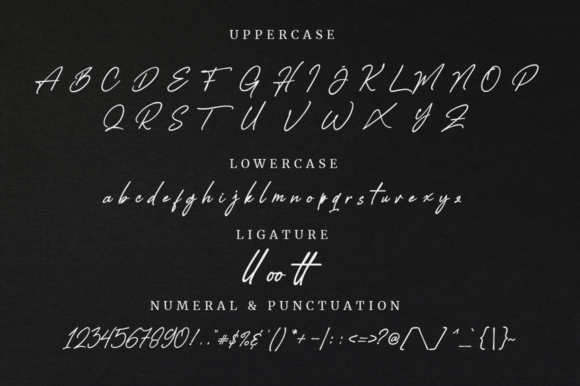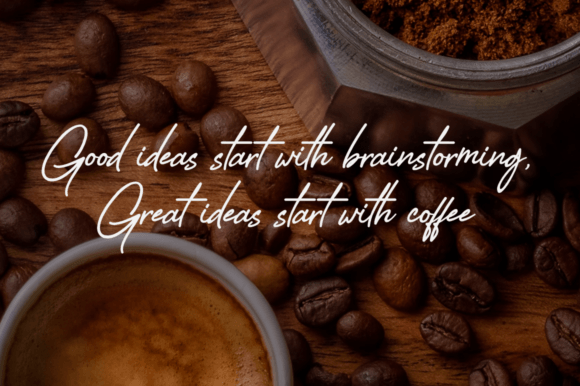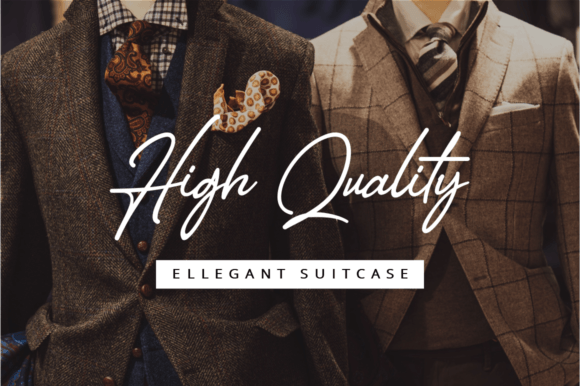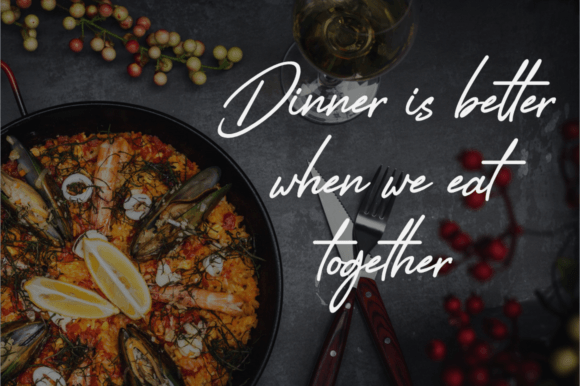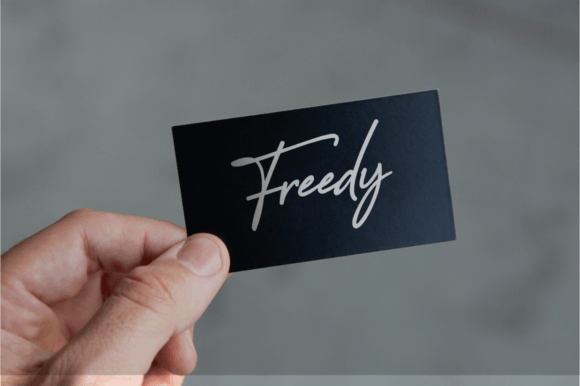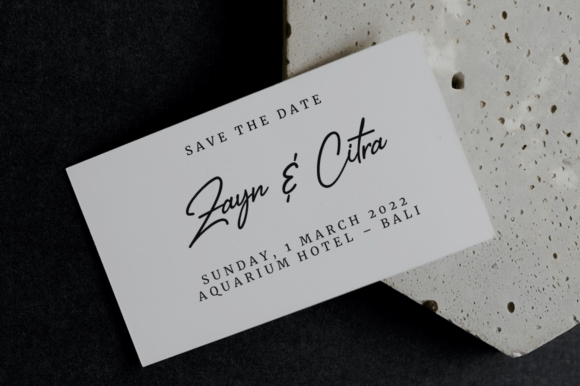
The Magic of Battavia Hill Font: Elevate Your Creative Vision
Have you ever been browsing through a beautiful design on Instagram, and suddenly, you’re inspired to create something similar? The thrill of seeing your creative idea come to life is unmatched. For designers, this spark of inspiration often leads to a quest for the perfect font to bring their vision to reality.
This is where the Battavia Hill Font comes into play – a magical script font designed to add a touch of elegance to any design. Whether you’re working on a DIY project or creating content for your social media, this font is sure to elevate your creative vision. Its unique design and versatility make it an invaluable asset for designers looking to add a personal touch to their work.
Battavia Hill Font Key Features
- Font Family: Battavia Hill
- Unique Characteristics: Features a unique blend of modern and vintage elements, with intricate details and ornate flourishes
- Font Style: Available in Regular, Bold, Italic, and Bold Italic styles
Battavia Hill Font Review
Overall, I think the Battavia Hill font has some great qualities, but it also has some areas where it falls short. Let’s start with what works well: ✨ The font has a unique and elegant feel that would be perfect for luxury branding or high-end packaging. The subtle rounded edges and classic feel make it a great choice for creating a sophisticated and refined atmosphere. Additionally, the font is highly legible, making it easy to read even at smaller font sizes.
However, there are some limitations to the font that might make it less suitable for certain projects. ⚠️ For one, the font is quite ornate, which can make it difficult to use for longer blocks of text. The complexity of the font can also make it harder to pair with other fonts, which might limit its versatility. Additionally, the font is not ideal for digital use, as it can be difficult to read at small font sizes on screens.
Here are some specific pros and cons of the Battavia Hill font:
- ✨ Unique and elegant feel
- ✨ Highly legible
- ⚠️ Difficult to use for longer blocks of text
- ⚠️ Limited versatility due to ornate design
- ⚠️ Not ideal for digital use
Overall, I would recommend the Battavia Hill font for projects that require a high-end, sophisticated feel. However, it’s not the best choice for projects that require a lot of text or digital use.
Tips for Getting the Most Out of Battavia Hill Font
For optimal results, use Battavia Hill font in combination with bold or italic text to add emphasis. You can also experiment with different font sizes to create visual hierarchy. Additionally, consider pairing Battavia Hill with other fonts to create a unique and eye-catching design.
Battavia Hill font is ideal for use in:
– Titles and headings
– Packaging design
– Advertising and marketing materials
– Digital products and e-books
Alternatives to Battavia Hill Font
Copperplate
Copperplate is a classic calligraphy font that is ideal for formal and elegant designs. It features beautiful, flowing lines that evoke a sense of sophistication. Copperplate is a better choice than Battavia Hill Font when you want a more traditional, high-end look for your designs.
Comparison: Copperplate has a more refined and intricate feel compared to Battavia Hill Font, which has a more rustic and vintage charm. While both fonts are elegant, Copperplate is more suitable for formal and high-end designs, whereas Battavia Hill Font is better for more casual and vintage-inspired designs.